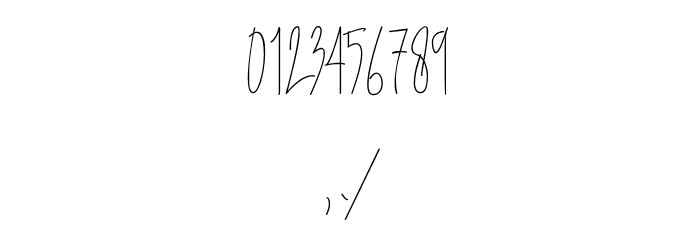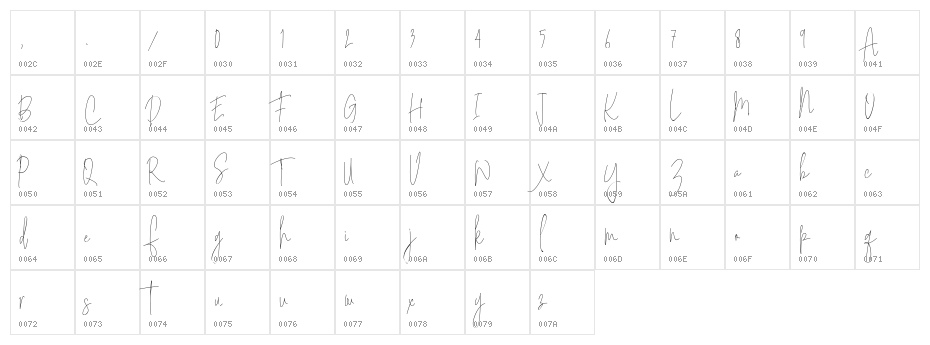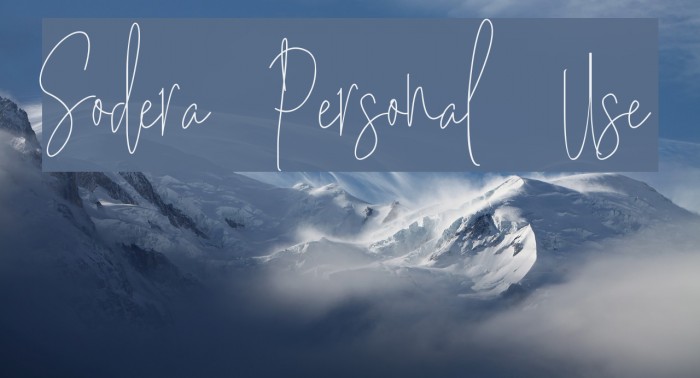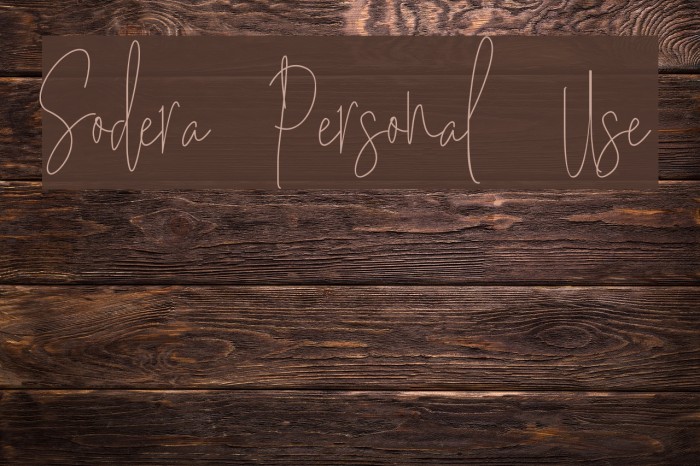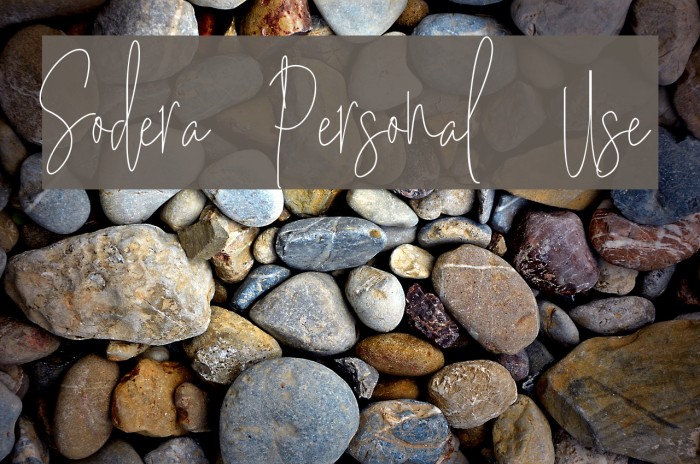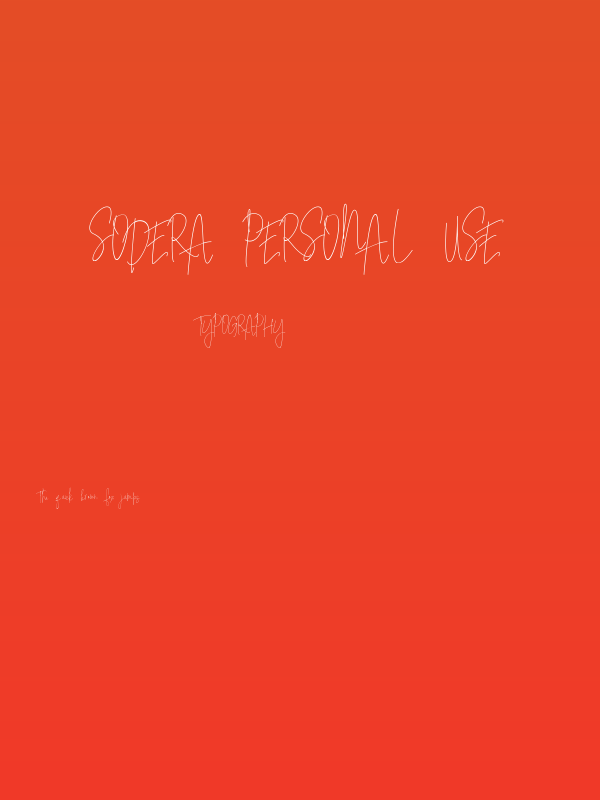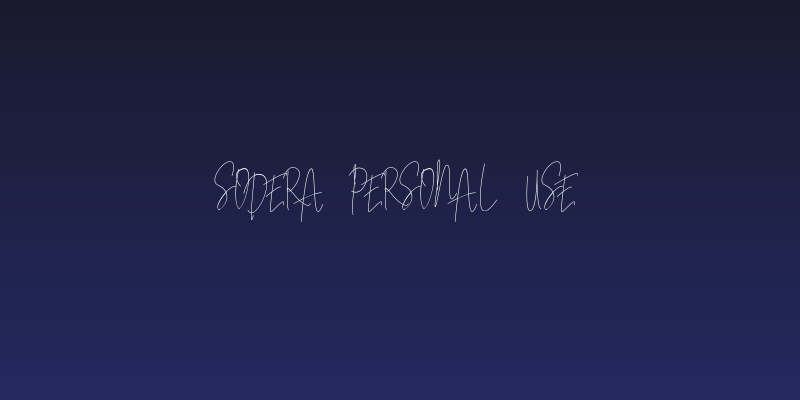
Sodera Personal Use Font
Sodera Personal Use Description
This font features a distinctive handwritten style with a casual and artistic flair. The characters are elongated and slightly slanted, giving a sense of movement and fluidity. The strokes are thin and delicate, adding an elegant touch to the overall appearance. The uppercase letters are bold and expressive, while the lowercase letters maintain a consistent flow. The numbers and special characters are designed to complement the alphabet, maintaining the same whimsical and free-spirited style. This font is perfect for projects that require a personal and creative touch.